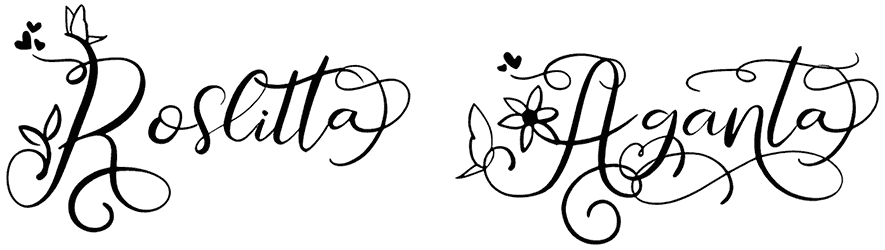
Roslitta Aganta Font
If you are in the mood for adding a feminine touch to your editorial projects and grabbing the attention of the audience, especially women, we offer you to pick up a lovely script font like Roslitta Aganta that comes with a soft flow and cursive style.
This spring font can add a feeling of delicacy, dynamism, or tenderness to business cards, wedding invitations, illustrations, or branding.